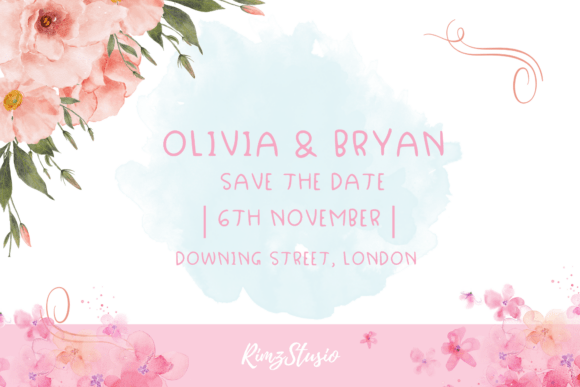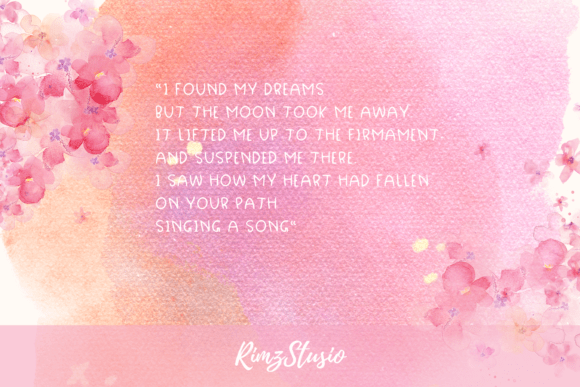
Introducing Cozy Notes Font: The Ultimate Companion for Warm and Fuzzy Designs
Are you tired of using the same old fonts that lack personality and warmth? Look no further than Cozy Notes, a beautiful handwritten font that will make your designs feel like a warm hug on paper. With its soft, uneven strokes and natural flow, Cozy Notes captures the charm of handwritten journal entries and heartfelt messages, making it perfect for a wide range of design projects.
The Charm of Cozy Notes
Cozy Notes is a sweet and gentle font that exudes a sense of comfort and coziness. Its soft, uneven strokes give it a distinctly handwritten feel, as if it was written with a pen or pencil on paper. The natural flow of the font makes it perfect for creating designs that feel personal and intimate, such as stationery, planners, and greeting cards.
One of the standout features of Cozy Notes is its ability to evoke a sense of warmth and comfort. The font’s soft, rounded edges and gentle curves make it feel approachable and inviting, making it perfect for designs that need to convey a sense of friendliness and approachability.
Cozy Notes is a versatile font that can be used for a wide range of design projects, including:
- Stationery: Add a personal touch to your stationery designs with Cozy Notes. The font’s handwritten feel makes it perfect for creating custom notebooks, journals, and notecards.
- Planners: Create cozy and inviting planners that feel like a warm hug. Cozy Notes is perfect for creating layouts that are both functional and beautiful.
- Greeting Cards: Make your greeting cards feel more personal and special with Cozy Notes. The font’s soft, uneven strokes give it a distinctly handwritten feel that’s perfect for conveying heartfelt messages.
- Children’s Books: Cozy Notes is a great font for children’s books, as its soft and gentle feel makes it perfect for creating engaging and interactive stories.
- Cozy-Themed Branding: If you’re looking to create a brand that feels cozy and inviting, Cozy Notes is the perfect font for you. The font’s warm and fuzzy feel makes it perfect for creating branding materials that feel approachable and friendly.
Why Choose Cozy Notes?
So why choose Cozy Notes over other fonts? Here are just a few reasons:
- Unique and Handwritten Feel: Cozy Notes has a distinctly handwritten feel that sets it apart from other fonts.
- Versatile: The font can be used for a wide range of design projects, from stationery to branding.
- High-Quality: The font is designed to be high-quality and easy to read, making it perfect for both print and digital designs.
If you’re looking for a font that feels like a warm hug on paper, look no further than Cozy Notes. With its soft, uneven strokes and natural flow, this font captures the charm of handwritten journal entries and heartfelt messages. Perfect for stationery, planners, greeting cards, children’s books, and cozy-themed branding, Cozy Notes brings a comforting, personal touch to every design. So why wait? Download Cozy Notes today and start creating warm and fuzzy designs that will make your audience feel loved and appreciated.